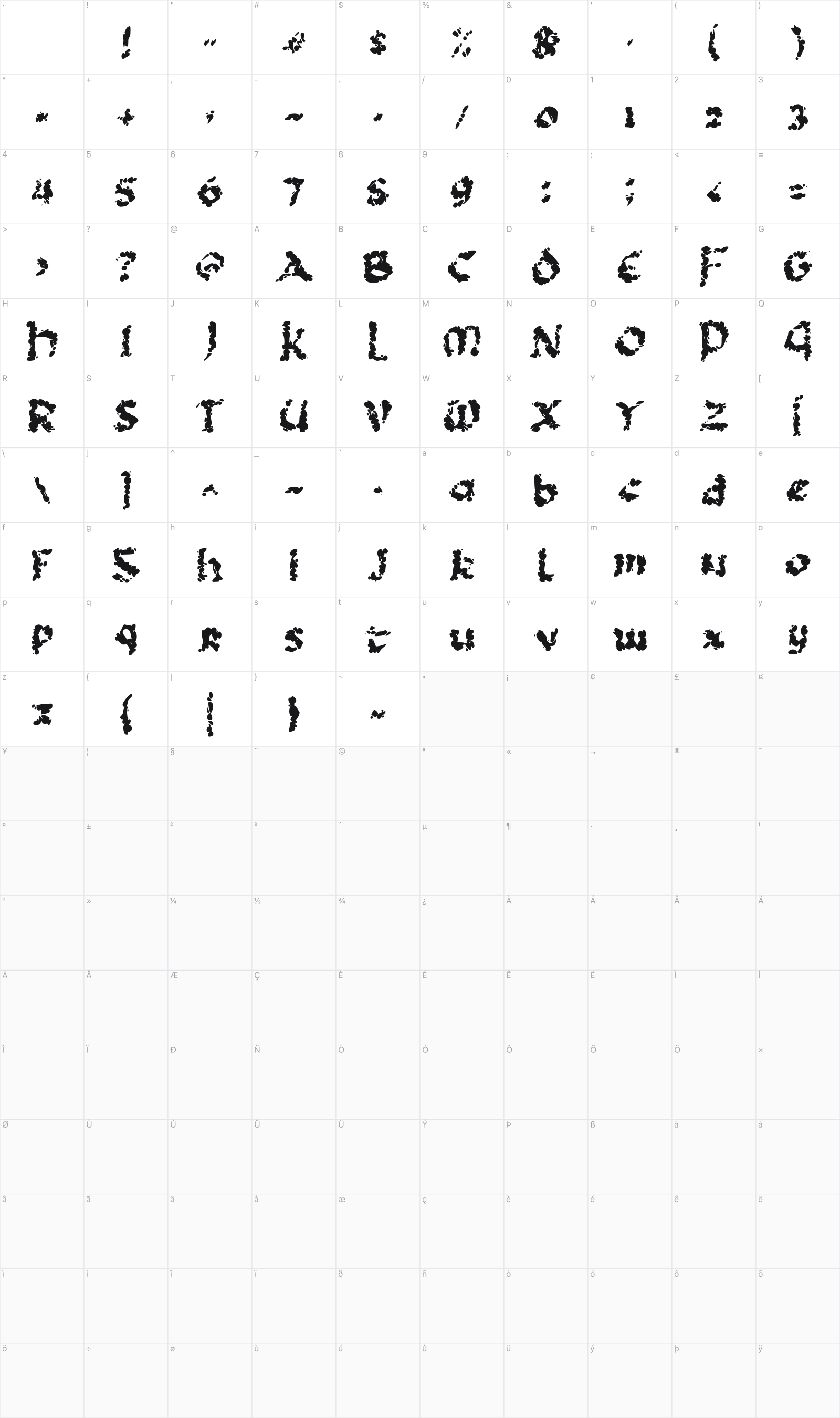
c Cuma Awan
c Cuma Awan is a heavily eroded grunge display font where every character looks like it has been eaten away, pitted, or left to decay. The underlying structure is bold and legible at large sizes, but the extreme surface distressing dominates the texture entirely. Best used at large scales where the gritty detail can read clearly.